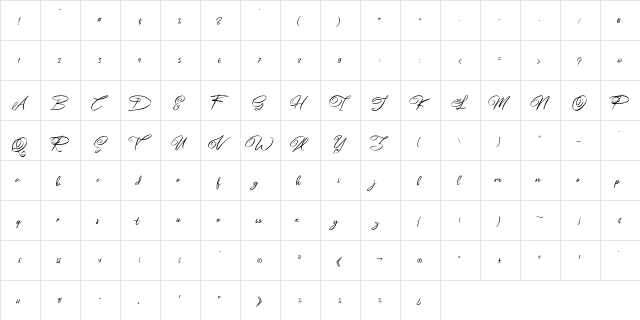
Esmetralda Free Personal Use Regular
Design Context for Esmetralda Free Personal Use Typeface
Esmetralda Free Personal Use is a composed and adaptable typeface that performs quietly and consistently across a wide range of design contexts.